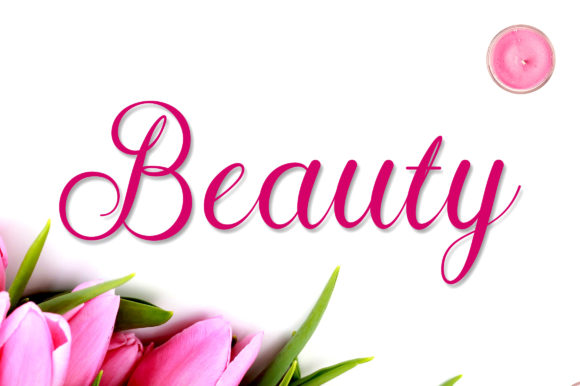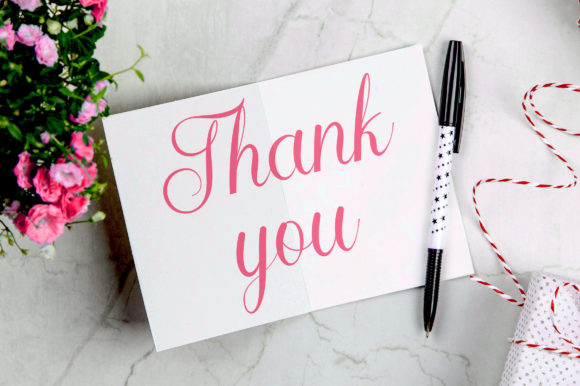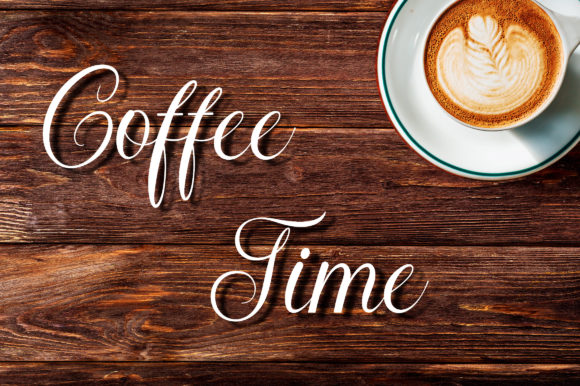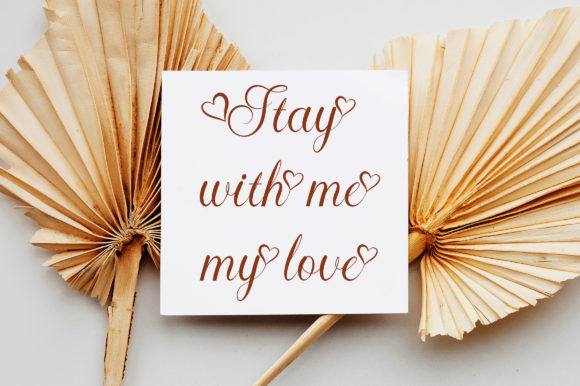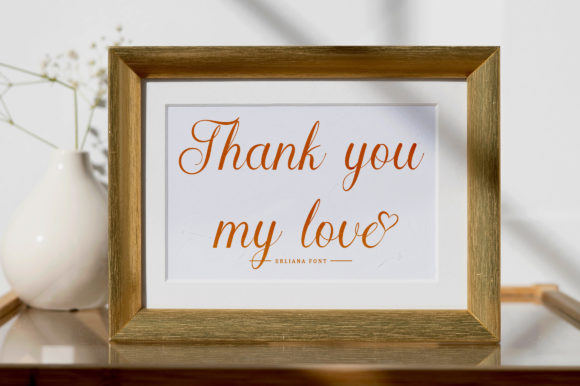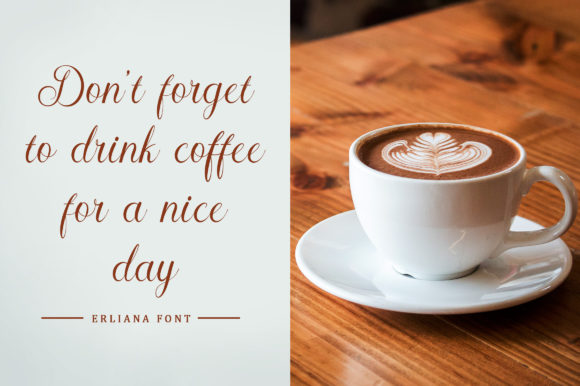
Introduction to Erliana Font
Do you ever have those moments where you’re brainstorming ideas for a creative project, and you stumble upon the perfect font to bring it all together? For many designers, that moment is when they discover the Erliana Font. This lovely script font features charming, playful characters that seem to dance along the baseline, adding a touch of whimsy to any design.
As a valuable design resource, the Erliana Font is a game-changer for creative projects. Whether you’re working on a logo, poster, or social media graphic, this high-quality font is sure to make your design stand out. And the best part? It’s available for free download, complete with a transparent background, making it easy to incorporate into any design.
Key Features of Erliana Font
- High-quality, elegant script font ideal for creative projects and design resources.
- Features a beautiful, flowing script with a unique and sophisticated feel, making it perfect for weddings, invitations, and other special occasions.
- Perfect for designers and artists working on creative projects, from graphic design to digital art and more.
Honest Review: Erliana Font
As a designer, I’m always on the lookout for high-quality design resources to enhance my creative projects. Recently, I had the chance to try out the Erliana Font, and I must say, it’s been a game-changer.
Here are some aspects that work well:
- ✨ Elegant and sophisticated design that adds a touch of sophistication to any project.
- ✨ High-quality font that’s perfect for printing and digital use.
- ✨ Includes a range of weights and styles to suit various design needs.
- ⚠️ Limited language support, which may be a concern for designers working on international projects.
- ⚠️ Some users may find the font to be a bit too ornate for certain design styles.
Overall, I’m impressed with the Erliana Font and would highly recommend it to designers looking for a high-quality, versatile font for their creative projects. Its elegant design, high-quality output, and free download make it an excellent addition to any design resource library.
Tips for Getting the Most Out of Erliana Font
Use Erliana Font with a transparent background to create a modern and sleek design. Experiment with different font sizes and colors to add visual interest to your design. You can also pair Erliana Font with other high-quality design resources to create a unique and eye-catching design.
Common Use Cases for Erliana Font
Erliana Font is ideal for use in creative projects such as graphic design, digital art, and branding. It’s also a great choice for use in presentations, documents, and other visual communications.